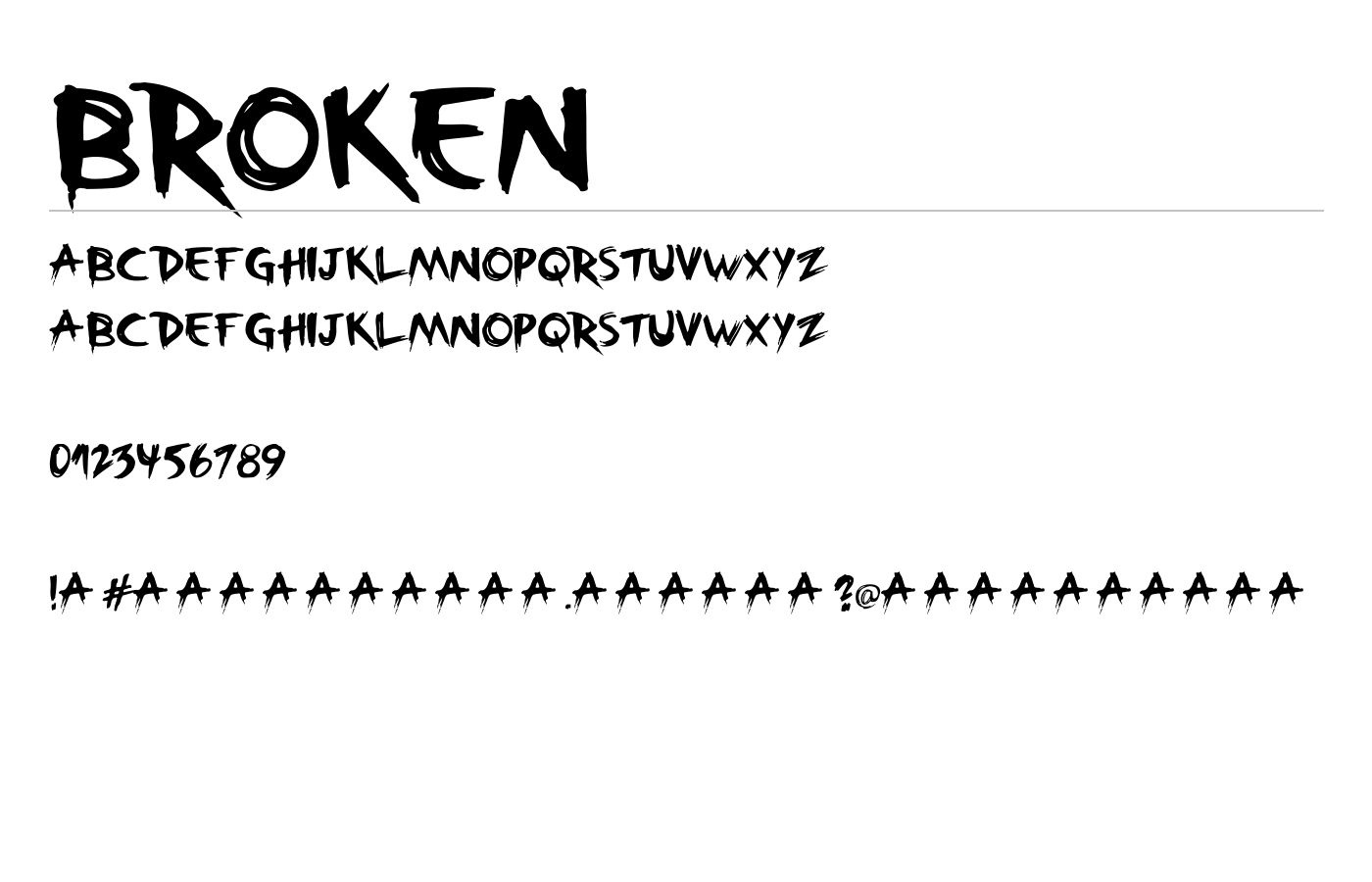
Broken Font is an expressive and bold sans serif display typeface featuring rough, jagged edges that create a distressed, hand-drawn look. Its irregular strokes and sharp, dynamic shapes give it a raw, energetic personality, making it ideal for impactful headlines, posters, and creative branding that seeks an edgy, rebellious vibe. This font works best where a bold statement is needed, especially in designs related to urban culture, music, or alternative fashion.
Broken Font
About Broken Font